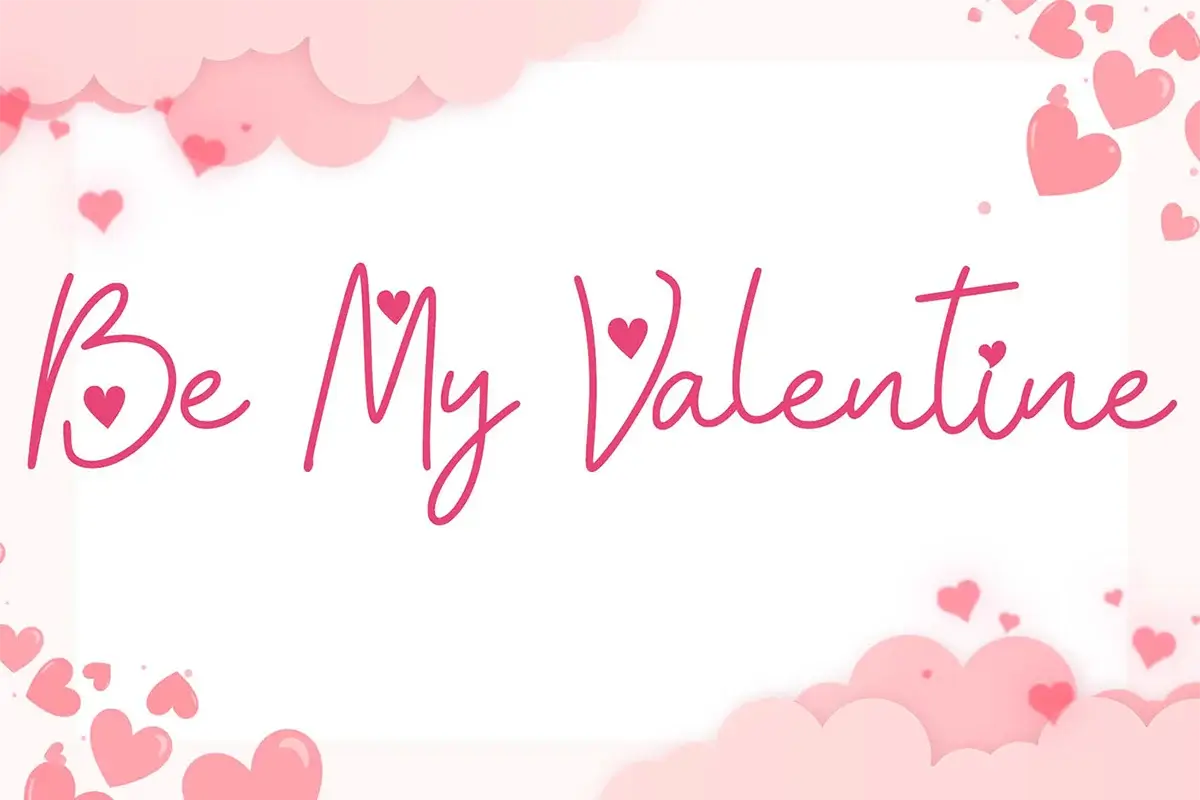
Aisha Valentine Font – Script Typeface
Aisha Valentine Font is a lovely, beautiful and fun monoline handwritten font that is perfect for adding a touch of love and romance.